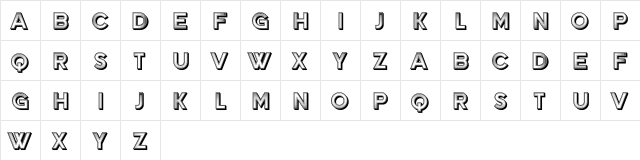
Boiled Hedgehog Regular
Design Context for Boiled Hedgehog Typeface
Boiled Hedgehog is a composed and adaptable typeface that performs quietly and consistently across a wide range of design contexts.